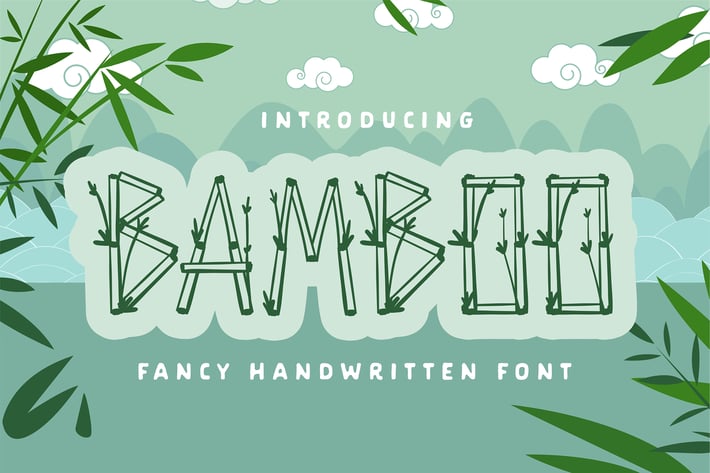
Bamboo | Fancy Handwritten Font
Bamboo | Fancy Handwritten Font with a calligraphy style, So beautiful on invitation like greeting cards, branding materials, business cards, quotes, posters, and more!